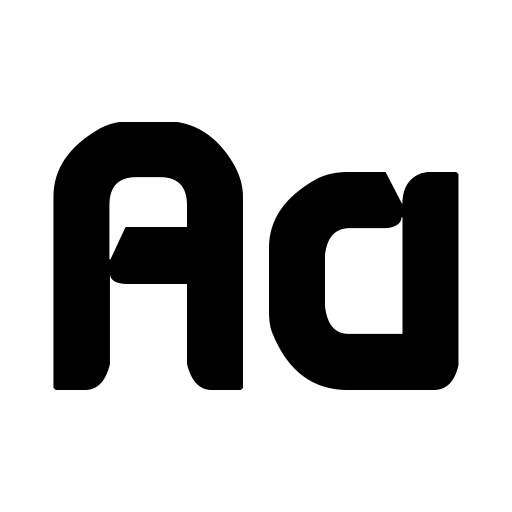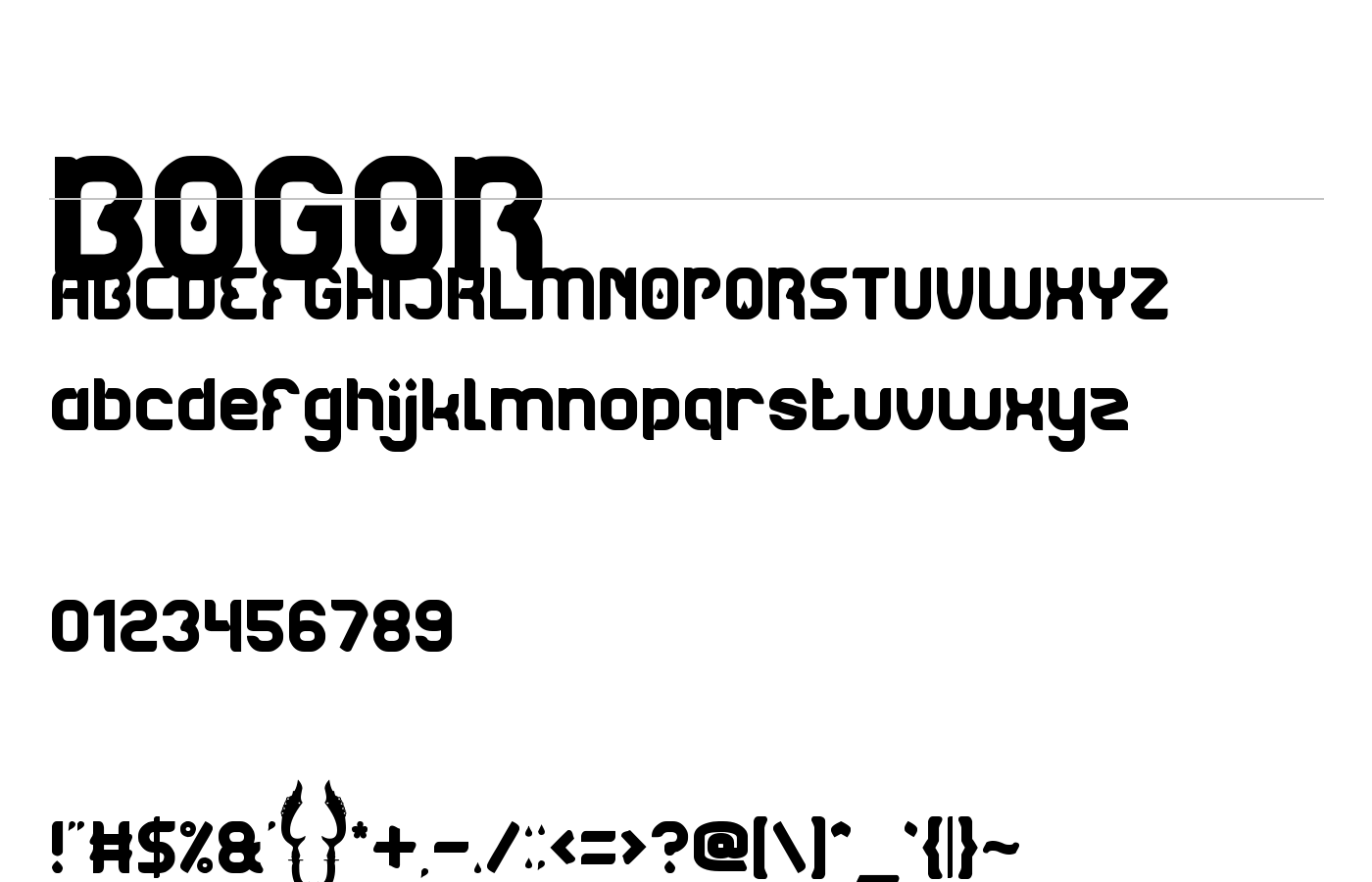
BOGOR is a bold, modern sans serif font with a strong, condensed structure and rounded edges that give it a sleek yet approachable feel. Its consistent stroke weight and soft corners create a contemporary vibe suitable for logos, headlines, and branding that seeks a clean, stylish impact. This font is ideal for projects needing a distinctive, tech-forward personality while remaining highly readable.
BOGOR Font
About BOGOR Font